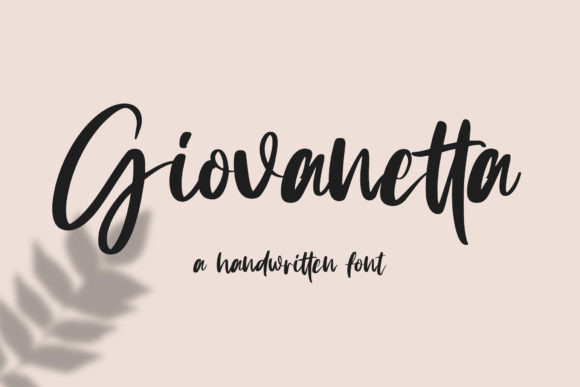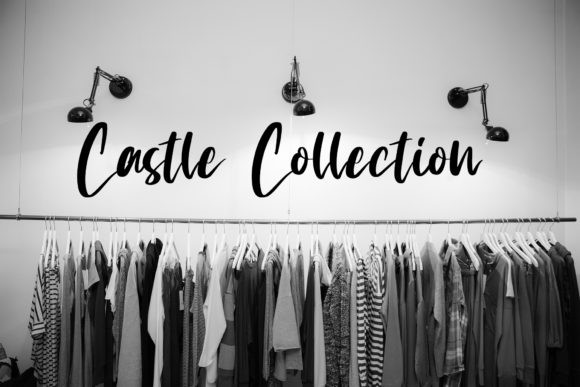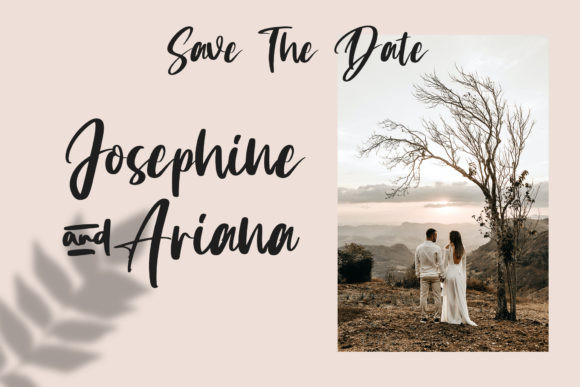
Giovanetta Font
Giovanetta is a cute and casual handwritten font with an incredibly friendly feel. Whether you’re looking for fonts for Instagram or calligraphy scripts for DIY projects, this font will turn any creative idea into a true piece of art!